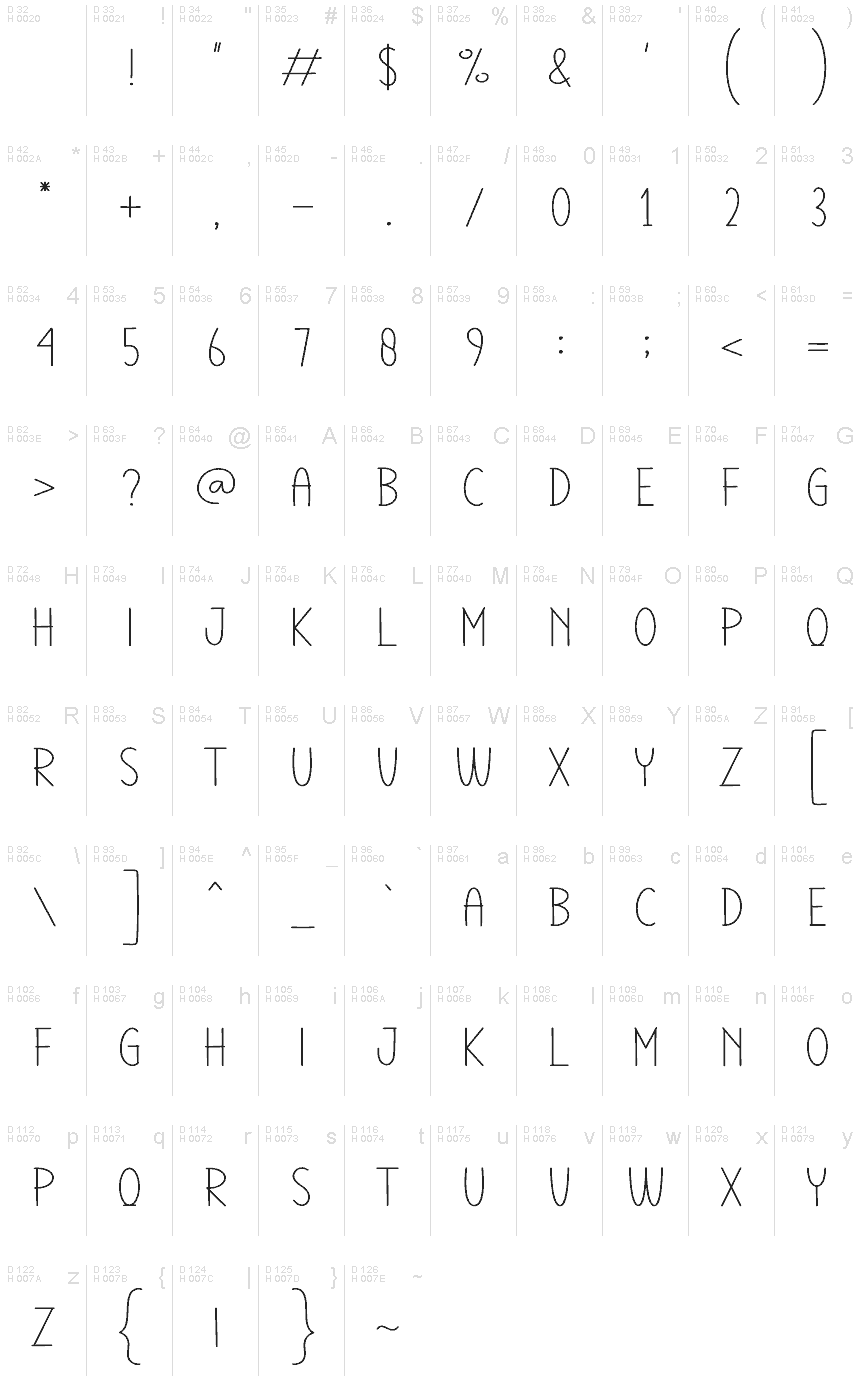
Young Mom
Young Mom font by Andi Moz is a light, condensed, contemporary handwritten font. Its minimalist appearance is made more unique by its geometric elements and clean lines, which also give off a modern look. It carries no unnecessary details and will look impeccable when used for contemporary projects.
Free script fonts have many traditional uses; personal diaries and stationary designs, planners, wedding invitations, logo or label designs are only few. With Young Mom font being so incredibly modern looking too though, it’ll also work for branding projects such as social media posts (this would include anything from Instagram quotes and captions to Facebook banners), as well as advertising posters among others.